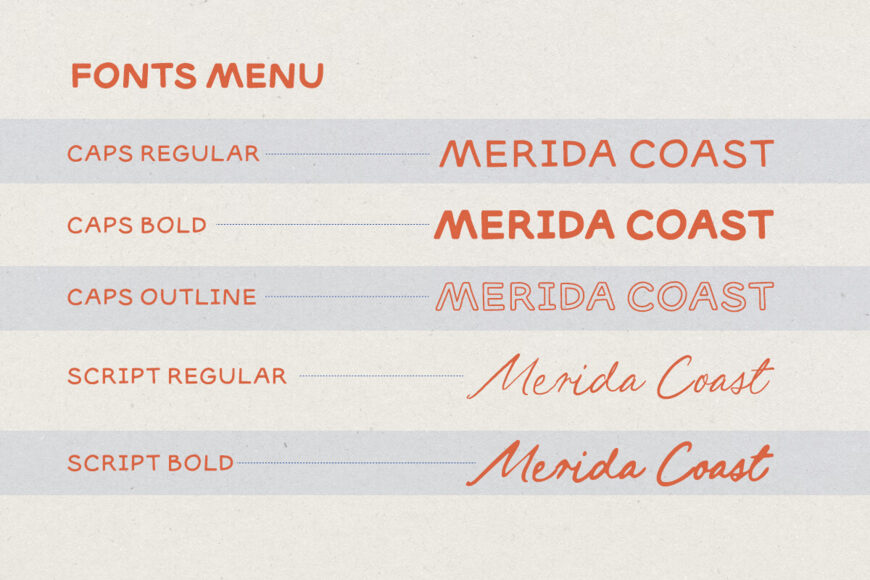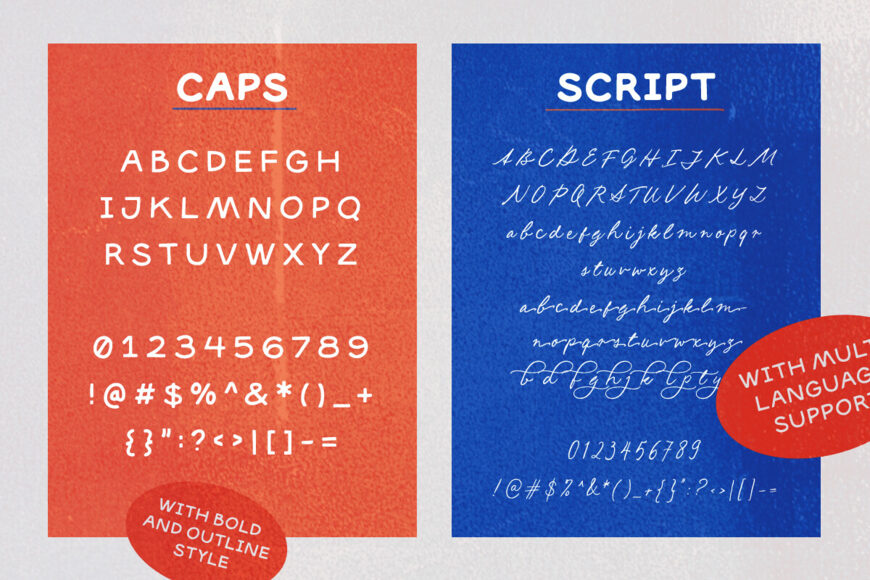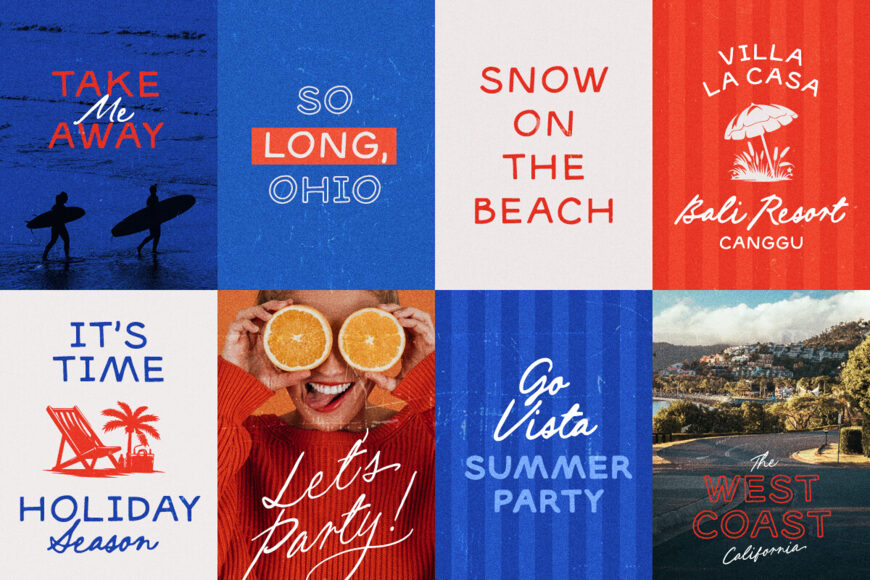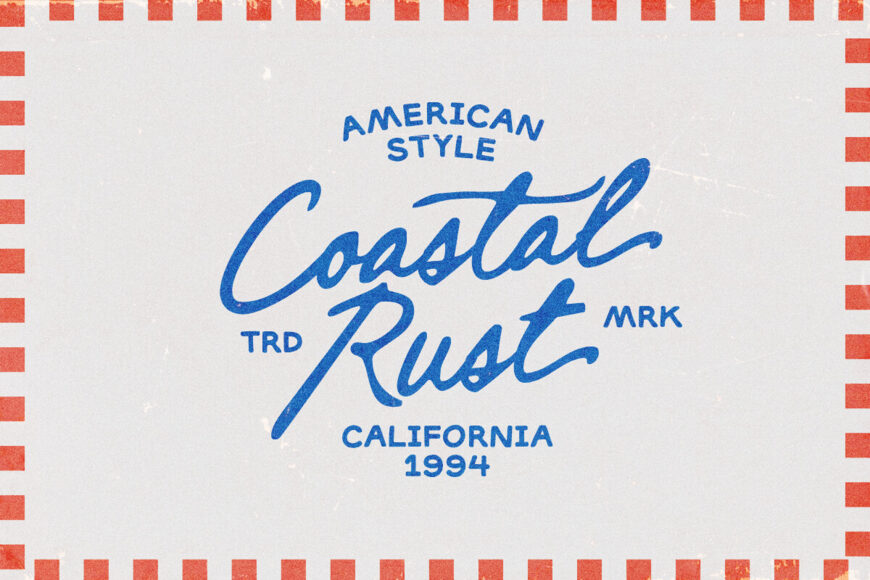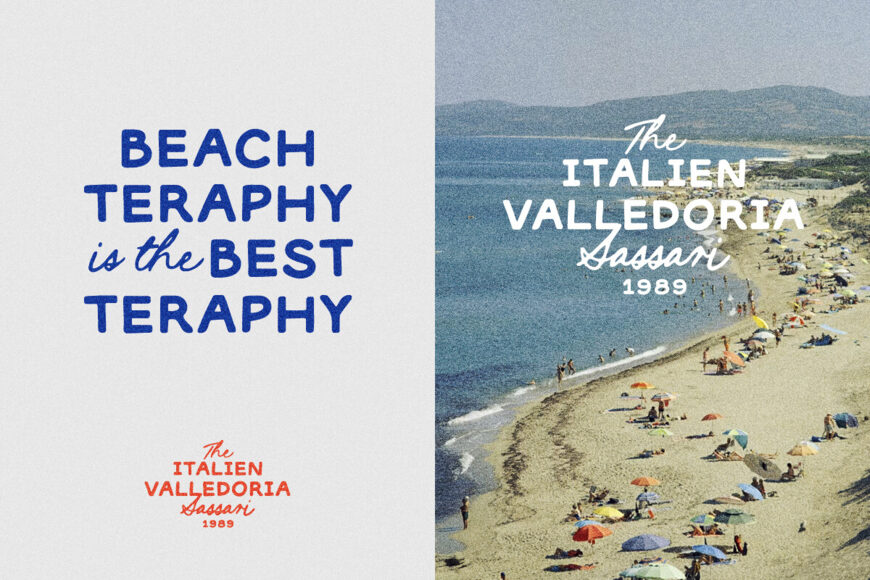
Merida Coast Font Family
Capture the sun-drenched nostagia of laid-back beach towns with Merida Coast, a versatile vintage font collection. This all-in-one typography suite features a bundle of five matching styles—including bold textured display caps, clean monoline outlines, relaxed casual scripts, and classic sans companions—designed to mix and match effortlessly for an authentic, handcrafted retro aesthetic.
Whether you’re crafting beach resort branding, surf apparel graphics, artisanal product packaging, summer event posters, travel merchandise, or vintage logo marks, Merida Coast brings a warm, laid-back coastal vibe straight to your designs.